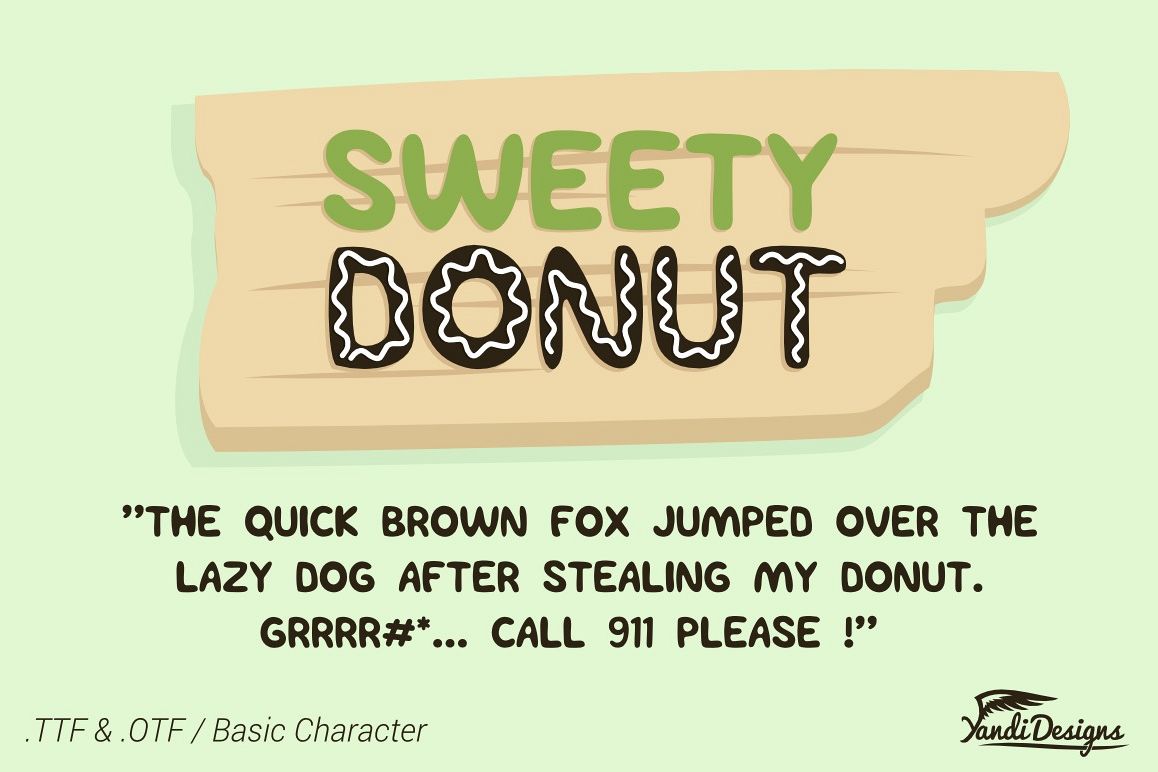
Sweety Donut - Fun Typo
Sweety Cream.
Sweety Donut.
Sweety Regular.
Fun Sweety Donut Fonts is fun font inspired by tasty donut / doughnut. You can use this font as layer or individual. You will get Basic Character as you see on preview. All Files in .TTF and .OTF